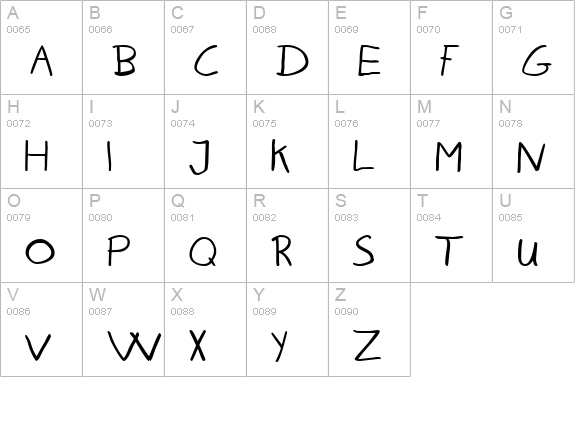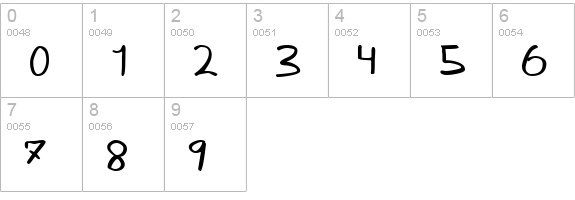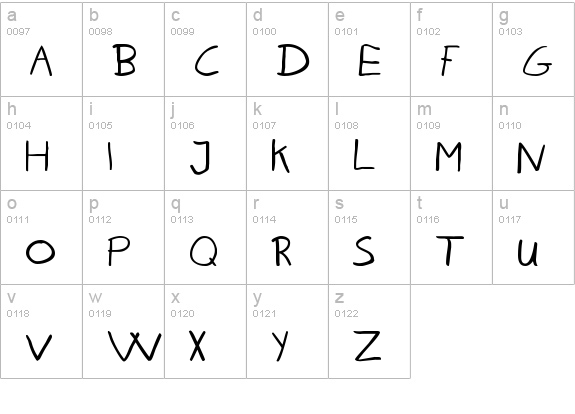
Karen Helenes haandskrift Font Details
Karen Helenes Haandskrift is a beautifully crafted handwritten font that exudes elegance and charm. Its delicate strokes and flowing curves give off a sense of sophistication and grace, making it perfect for a wide range of design projects. Whether you're looking to add a personal touch to invitations, greeting cards, or branding materials, this font is sure to make a lasting impression. What sets Karen Helenes Haandskrift apart is not only its timeless aesthetic but also the fact that it is available for free download at FontsMarket.com. This means that you can easily access and use this gorgeous font in your projects without any cost involved. So go ahead and elevate your designs with the unique beauty of Karen Helenes Haandskrift today!